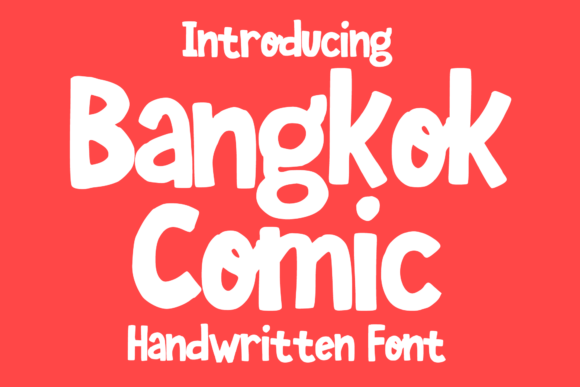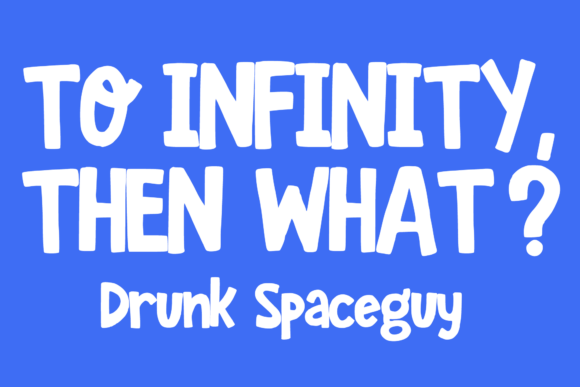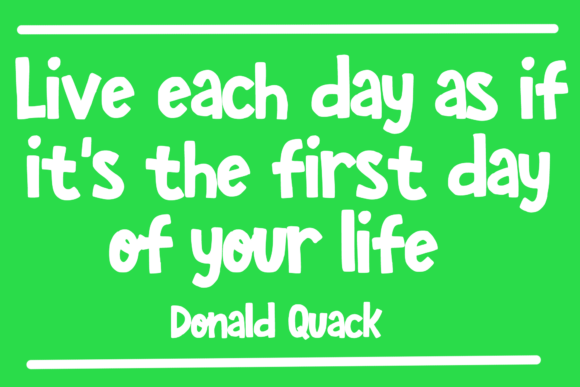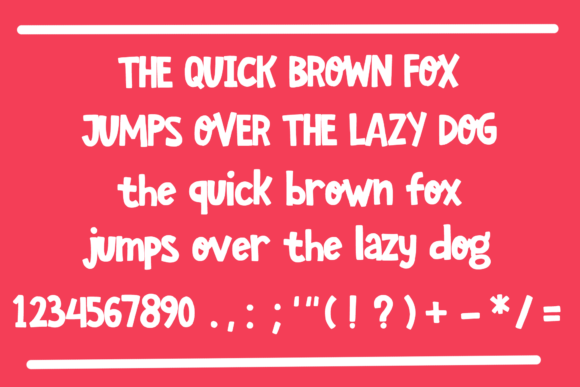
Unleash Your Creativity with the Bangkok Comic Font
Have you ever stared at a blank canvas, waiting for the perfect idea to strike? You’re not alone. Many designers have been there, searching for that elusive spark that sets their imagination ablaze. For some, it’s a burst of color, while for others, it’s a quirky font that brings their vision to life.
Enter the Bangkok Comic Font – a playful, robust cartoon font designed to bring joy and cheer to every project it touches. Whether you’re crafting kids’ books, designing t-shirt patterns, or developing eye-catching greeting cards, this font is your go-to choice. Its bold, fun twist will add a touch of whimsy to any design, making it a valuable asset for designers looking to unleash their creativity and create something truly unique.
Bangkok Comic Font Key Features
- Font Family: Bangkok Comic Font is a comic sans-serif font family designed to mimic the look of hand-drawn comic books.
- Size: Bangkok Comic Font comes in a range of sizes, from 8pt to 72pt, making it suitable for various applications, including comics, graphic novels, and children’s books.
- Unique Characteristics: Bangkok Comic Font is designed to have a playful, hand-drawn feel, with subtle irregularities and imperfections that give it a more human touch.
- Resolution: Bangkok Comic Font is designed to work well at a range of resolutions, from 72 dpi to 300 dpi, making it suitable for both digital and print applications.
- Language Support: Bangkok Comic Font supports a wide range of languages, including Latin, Cyrillic, and Greek alphabets, as well as many non-Latin scripts.
Bangkok Comic Font Review
I recently had the chance to work with the Bangkok Comic Font, and I must say it’s a unique and quirky choice for any design project. Here’s my honest take on what works well and what doesn’t.
- Vibrant and playful feel**: Bangkok Comic Font brings a fun and energetic vibe to any text, making it perfect for projects that need a lighthearted tone.
- High contrast**: The font’s bold lines and thick strokes create a high-contrast design that’s great for readability, even in small sizes.
- International appeal**: Bangkok Comic Font is a great choice for designs that need to appeal to a global audience, as its eclectic style is instantly recognizable.
- Not ideal for formal projects**: Due to its playful nature, Bangkok Comic Font might not be the best choice for formal or professional designs where a more serious tone is required.
- May be distracting in large blocks of text**: The font’s bold lines and quirky style can be overwhelming in large blocks of text, so use it sparingly to avoid visual fatigue.
Overall, I think Bangkok Comic Font is a great choice for designers who want to add some personality and whimsy to their projects. While it may not be suitable for every design, it’s definitely a unique and eye-catching option that can add some visual interest to your work.
The Bangkok Comic Font is ideal for:
1. Graphic novels and comics
2. Children’s books and educational materials
3. Digital comics and webcomics
4. Creative and artistic projects
Alternatives to Bangkok Comic Font
Great Vibes is a modern, elegant script font designed by Jean-Baptiste Emmanuel. It is ideal for use in invitations, quotes, and any design where a touch of sophistication is required. Great Vibes has a more refined and polished look compared to Bangkok Comic Font, which is more playful and cartoon-like.
Playfair Display is a luxurious, high-end serif font designed by Claus Eggers Sørensen. It is perfect for use in titles, headings, and any design where a sense of opulence is desired. Playfair Display has a more formal and elegant look compared to Bangkok Comic Font, which is more casual and fun.